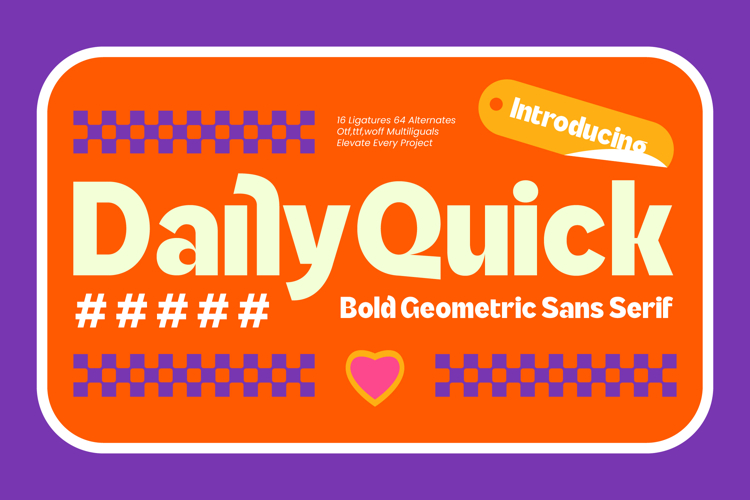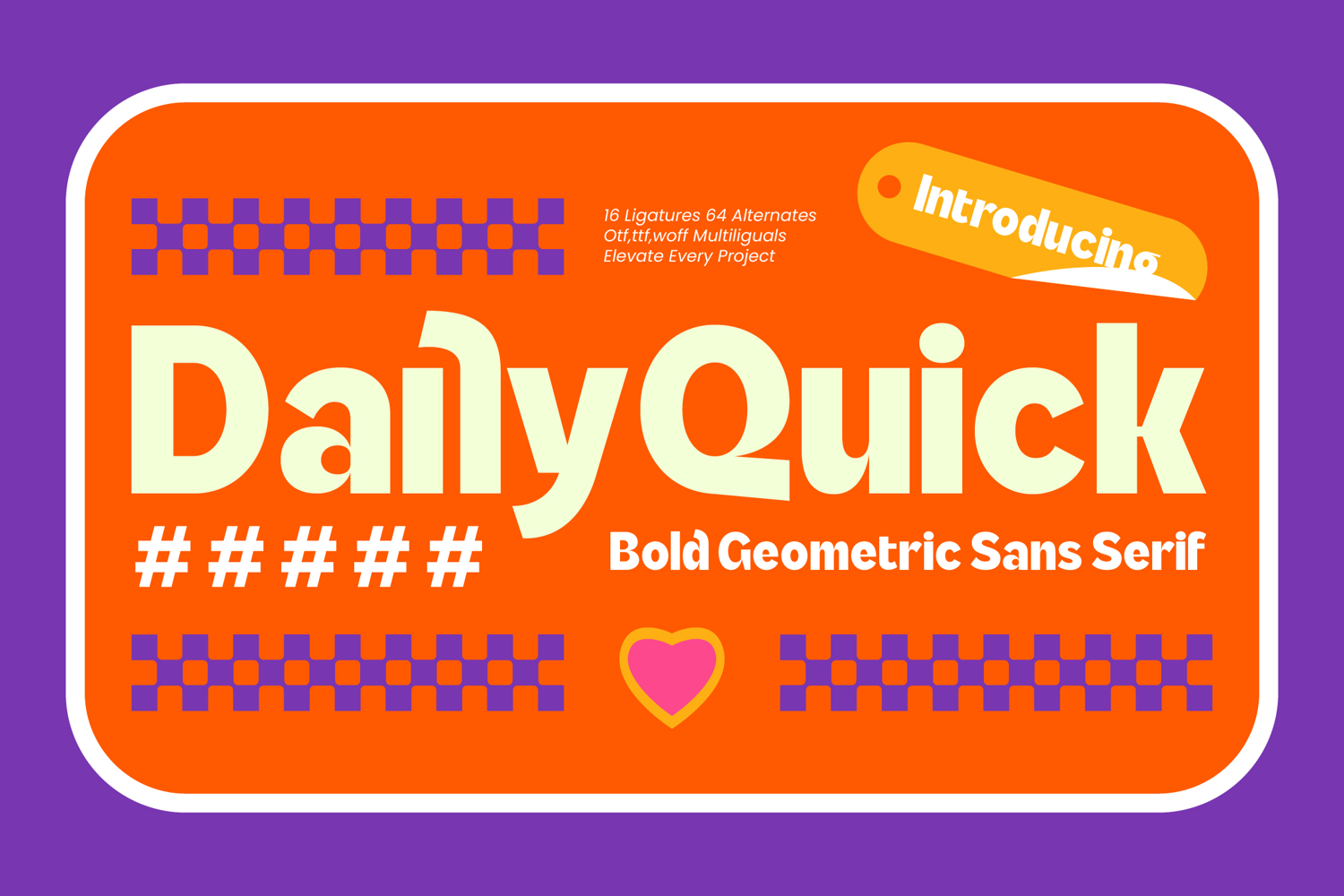
Daily Quick Bold Geometric Sans Serif
Daily Quick – Bold Geometric Sans Serif
Command attention with an unapologetically bold aesthetic that defines modern graphic standards. Daily Quick – Bold Geometric Sans Serif is a masterpiece of contemporary typography, blending geometric precision with a playful, high-energy spirit. Designed to dominate headlines and command visual hierarchy, this bold display typeface ensures your message is not just seen, but remembered through its clean architecture and striking presence.
Unlock unparalleled creative freedom with a comprehensive set of professional typographic features. Featuring 16 unique ligatures and 64 stylish alternates, Daily Quick – Bold Geometric Sans Serif offers infinite customization for any design layout. With its extensive multilingual support, Daily Quick – Bold Geometric Sans Serif adapts seamlessly across global markets, making it incredibly versatile for international projects requiring a consistent brand identity.